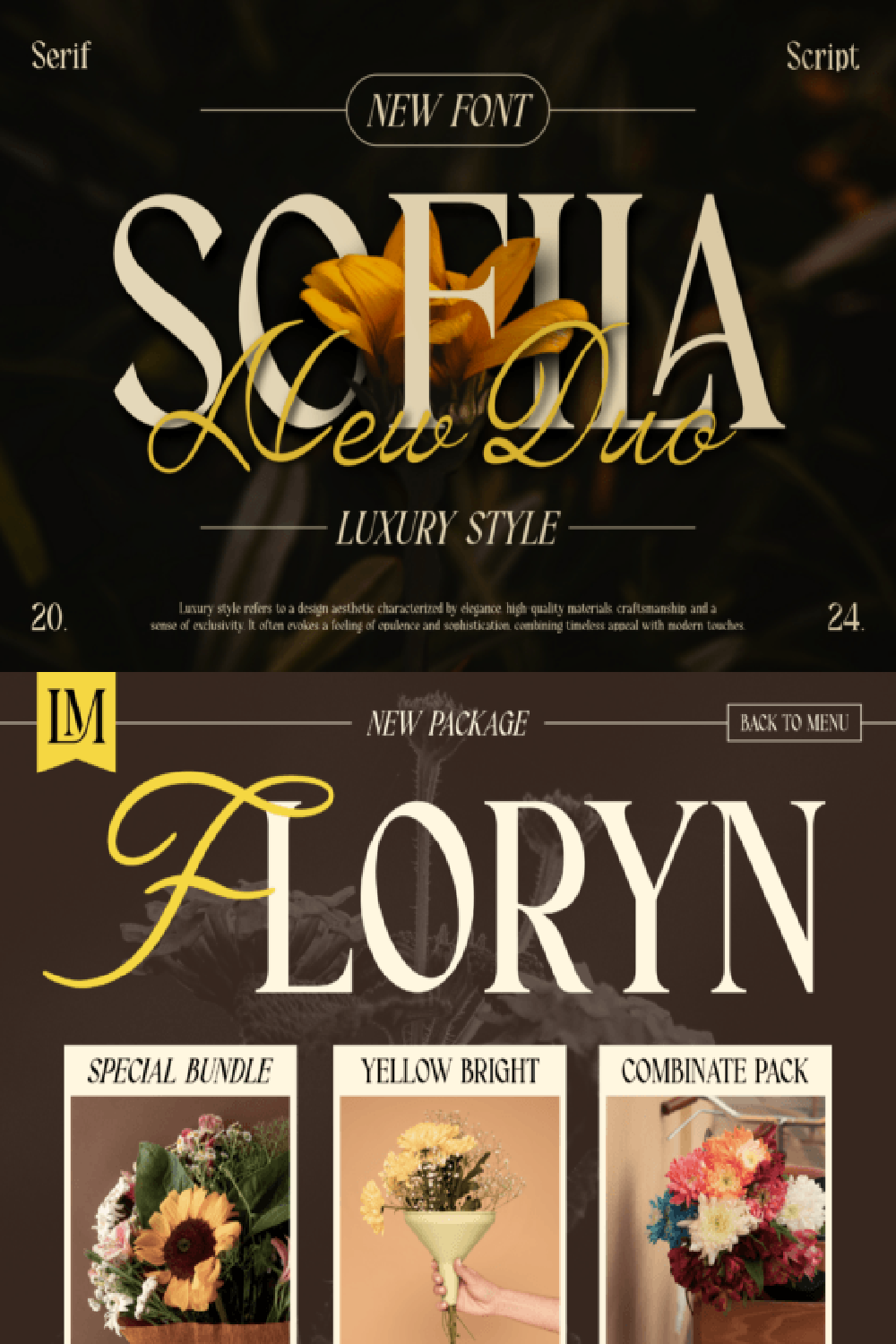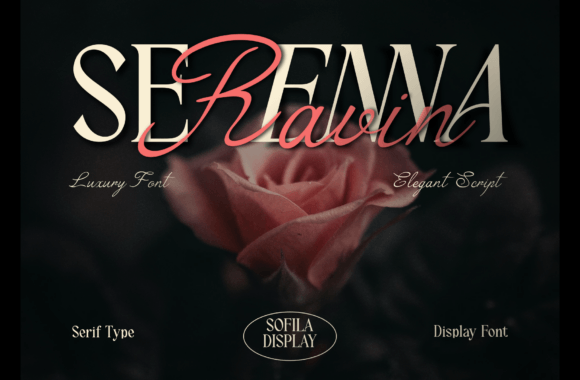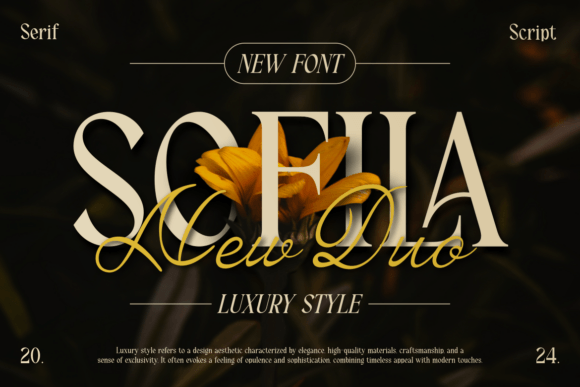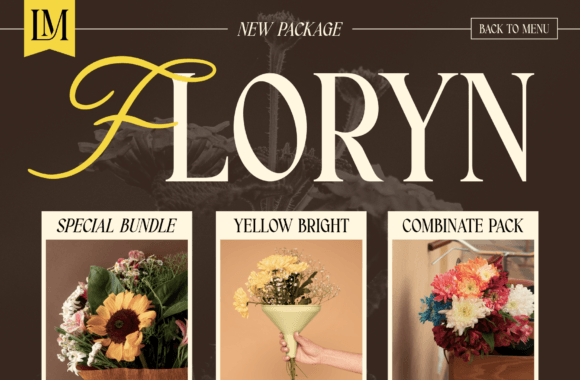
Sofila Font: Elegant Serif Typeface for Luxury Branding & Logo Design
About the Sofila Font
The Sofila Font is here to transform your projects with its distinctive character and style. Introducing our new product **Sofila** – Elegant Serif Typeface
This font is a type of letter that has special characteristics that create the impression of luxury, elegance and firmness. This font involves a series of design elements such as balanced thin and thick lines, gentle curves, and elegant and clean serifs. The sharp corners and fine details of each character create a highly aesthetic impression and exude an air of elegance.